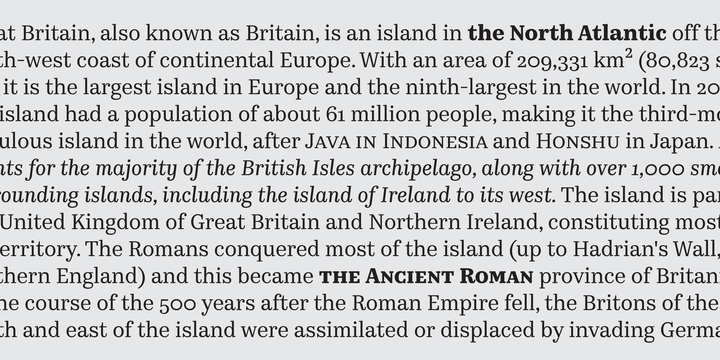
Kazimir Text™ Font Family
Greeting the new day! Befonts will always bring you the best quality fonts, serving your design needs, complement your fonts collection. Introducing Kazimir Text™ Font Family! Kazimir Text is a Modern serif typeface with a quite simple graphic idea. It is a Text version of displayKazimir typeface. Kazimir Text has a bit wider proportions, a bit lower contrast and much wider codepage with extended language support compare to Kazimir.